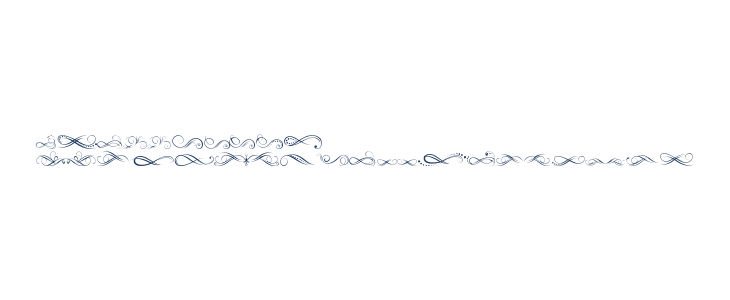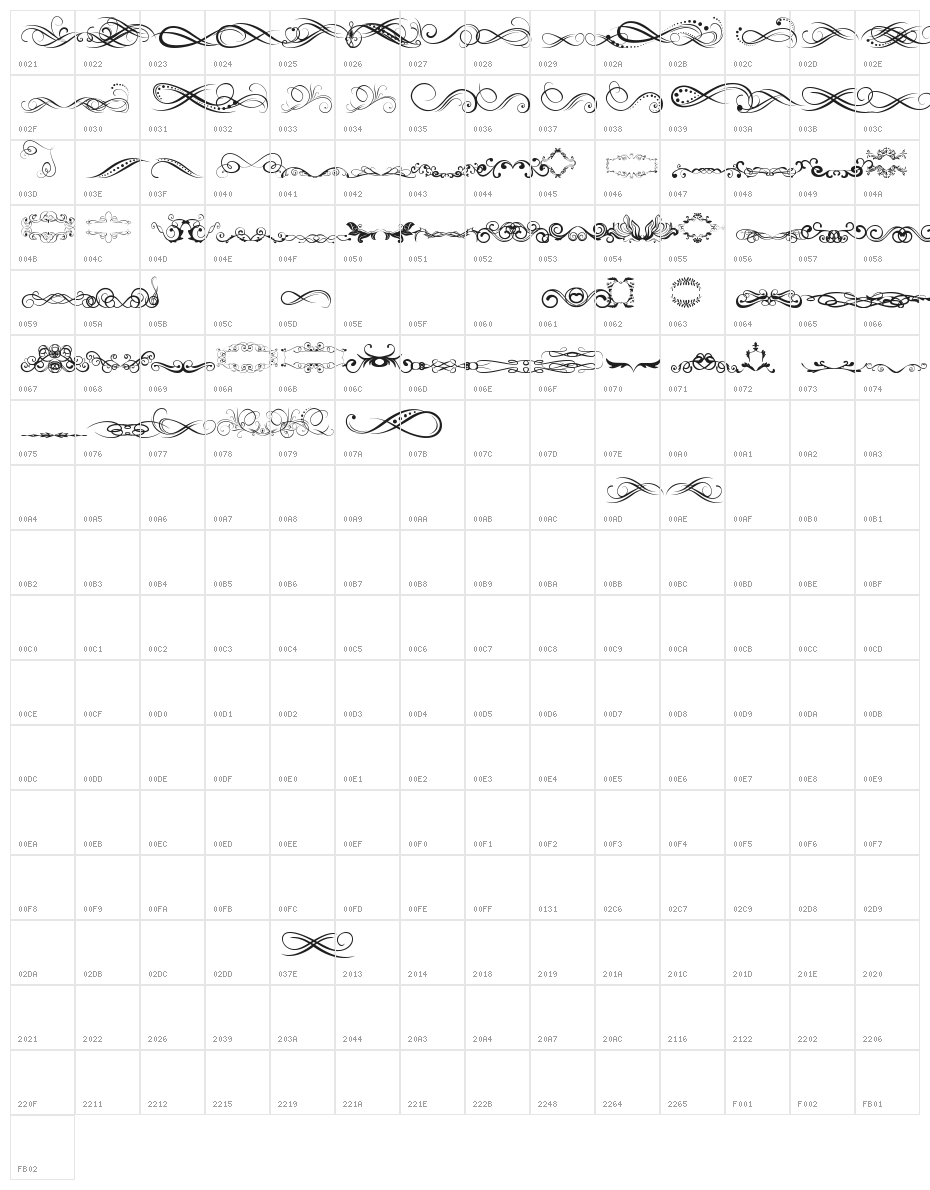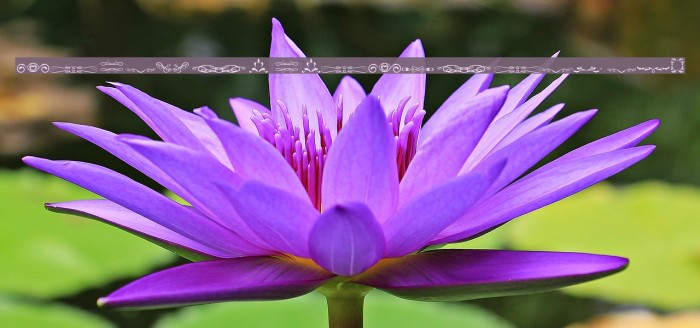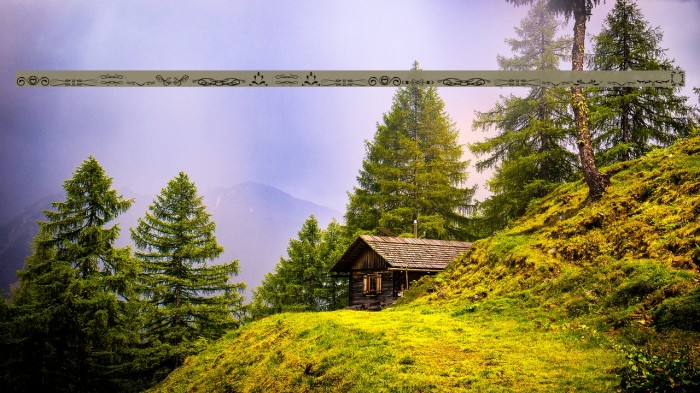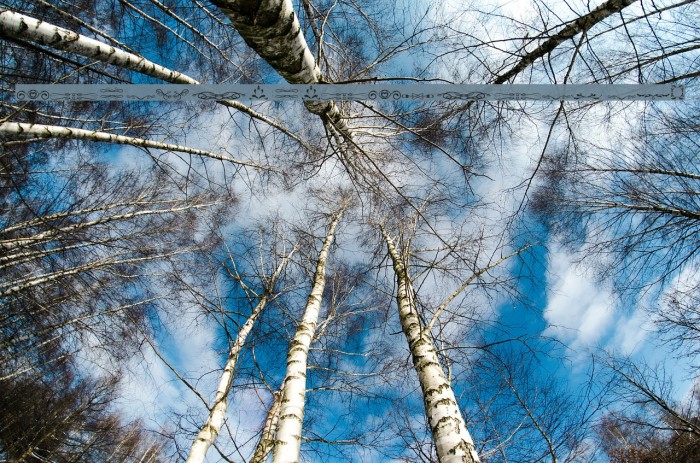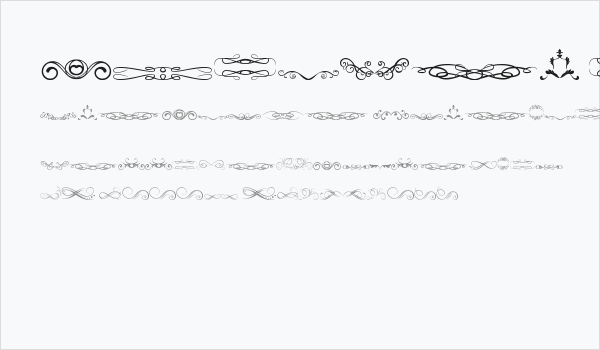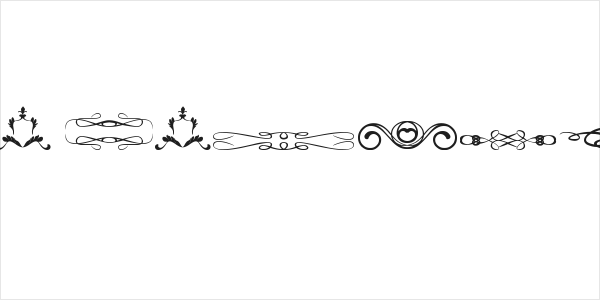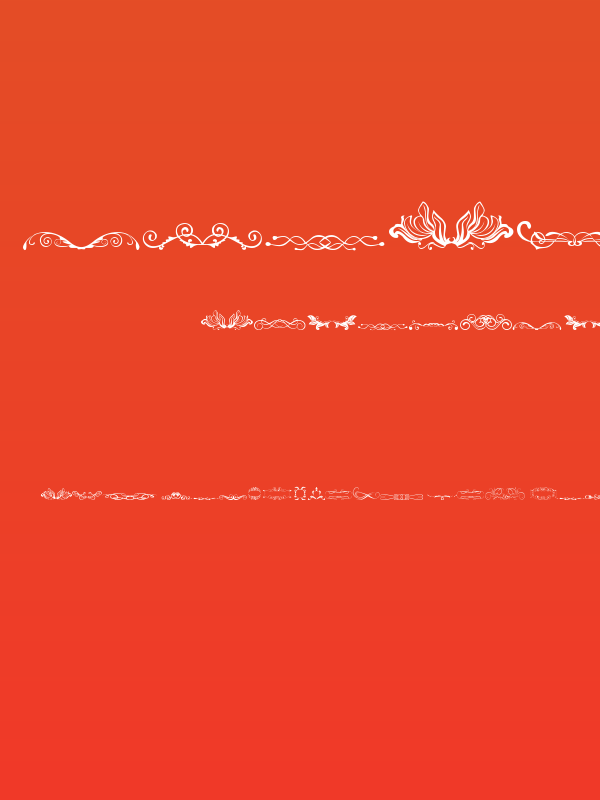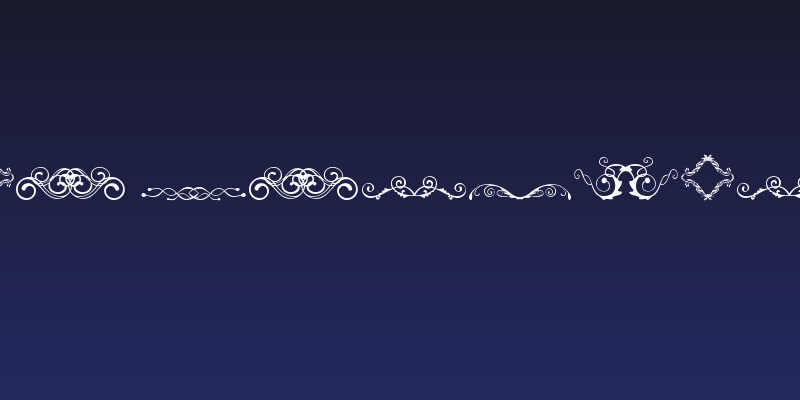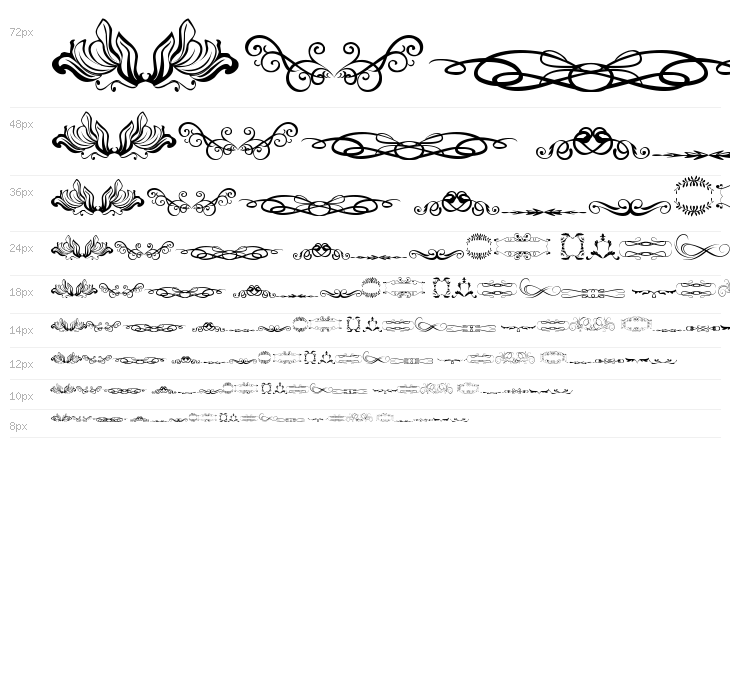
another ornaments tfb Font
another ornaments tfb Description
A collection of highly decorative, intricate ornamental borders and flourishes with swirling, floral, and vintage motifs. The elements vary in complexity and thickness, featuring both symmetrical and asymmetrical designs, ideal for embellishing invitations, certificates, or decorative print materials.
| Overall Style | Decorative, Vintage, Ornamental |
| Use Case | Borders, Dividers, Decorative accents |
| Proposed Projects | Wedding invitations, certificates, greeting cards, decorative dividers, vintage-themed posters, scrapbooking. |